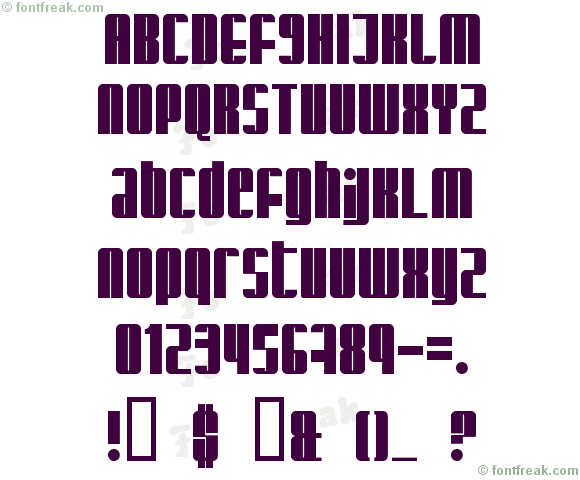
Glaring Italic
Glaring
About Glaring
Glaring is a striking display font created by Dustbust Fonts, classified as a sans-serif typeface that masterfully combines modern aesthetics with bold character. Its visual characteristics include a notable stroke weight that balances between thick and thin, providing a dynamic contrast that draws attention. The spacing is meticulously designed to enhance readability while maintaining an inviting appearance. This font features unique, eye-catching elements that make it stand out, such as sharp angles and an assertive presence, making it suitable for a variety of creative applications.
Glaring is an ideal choice for projects that demand a strong visual impact. It works exceptionally well for wedding invitations, where its elegance can complement romantic themes. Additionally, it’s perfect for movie posters, capturing the essence of a film's genre through its boldness. Restaurant menus can benefit from Glaring's distinctive style, helping to create an inviting atmosphere. Furthermore, it serves well in branding for small businesses, where a memorable typeface can enhance identity and appeal. Content creators will also find this font useful for social media graphics and promotional materials, ensuring their messages stand out in a crowded digital landscape.
What sets Glaring apart is its ability to merge functionality with a striking visual language. This font not only captures attention but also communicates a sense of contemporary style, making it a valuable asset for anyone looking to elevate their design projects. Don’t miss the opportunity to enhance your work with the Glaring font free download, and experience the impact it can bring to your creative endeavors.